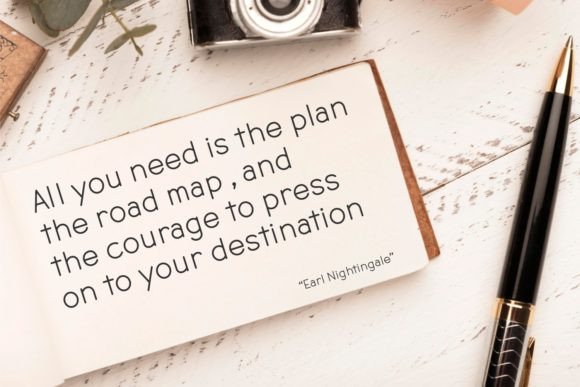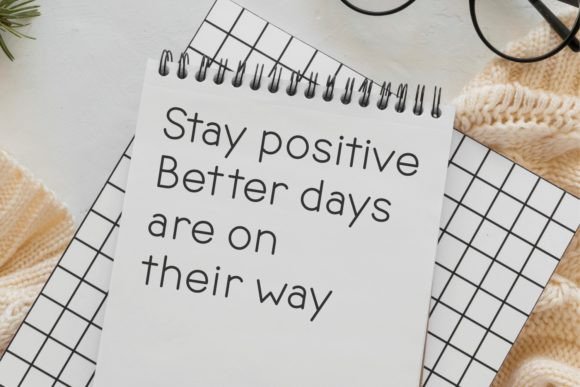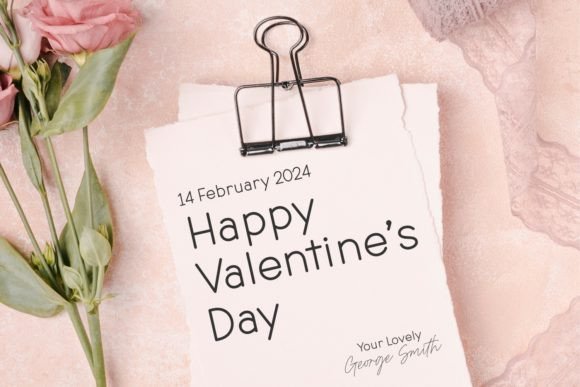
Bright Notes Font
Bright Notes it’s fun, it’s cute, it’s smooth. A font with lots of combination possibilities, it makes a fun display, good to make logotypes, stickers, fun kid’s signs, and other lettering projects.